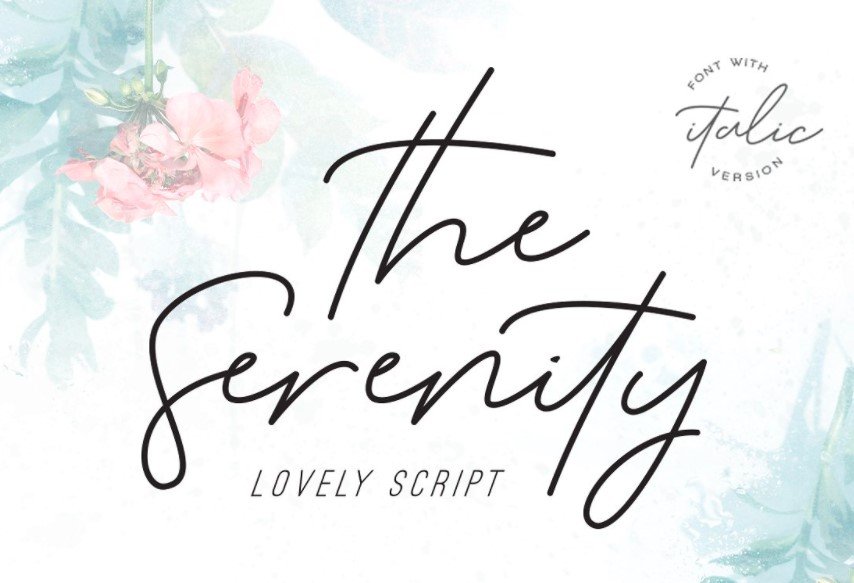
Hi there, are you ready to elevate your graphic design skills? If you're looking to create some stunning designs, you should definitely download and use the Serenity Script typeface. It's a unique, fresh, modern, and perfect calligraphic font.
The font was shared by Yumna Type who designed this great typeface. It comes with many styles, with support or multilingual and pairing which can be used with the combination of archer font.